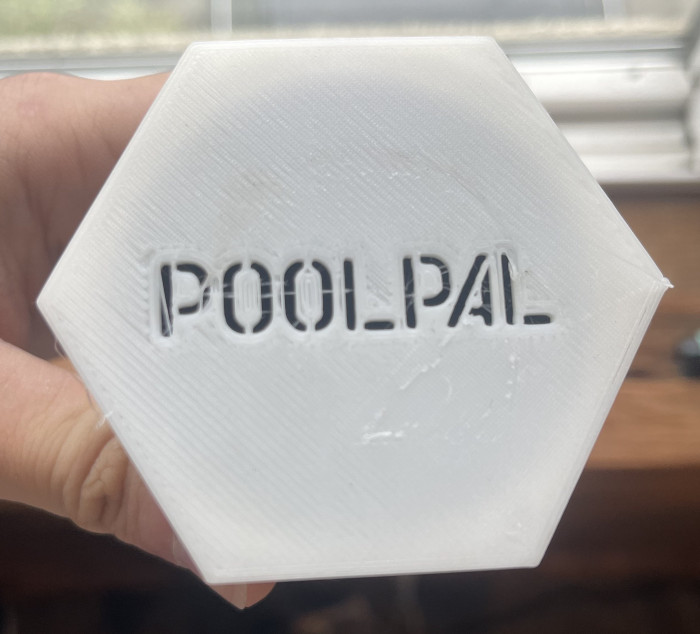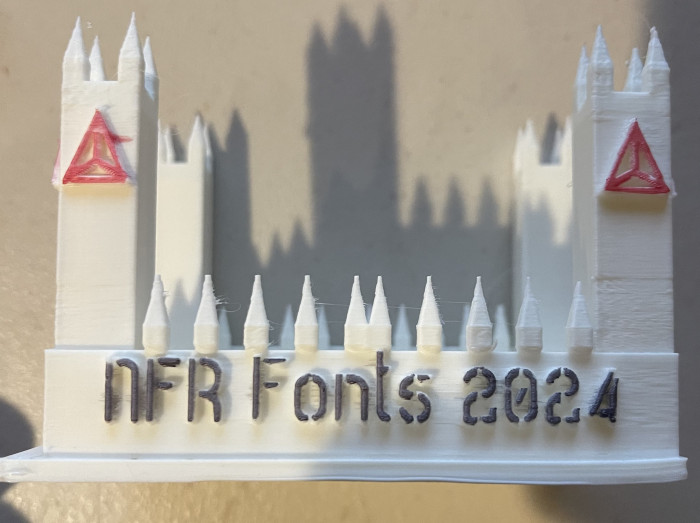
A very basic font I created specifically to emboss/use as holes in 3D printed material. This one is available for free, in the hopes that it will be useful for others attempting to use a simple stencil for projects. Sample coming soon. Only took me about 30min to make.
Hi Foar and Goatmeal, great to see both of you guys still here :) I remember making fonts on FS when i was 10, here I am now at age 21. It is 3-D Printed, just with basic PLA filament on a Ender 3 v3SE 3D printer, nothing too crazy or advanced. A simple font serving a simple but useful purpose. More samples coming soon.
Hi Elmo, as per your request I have completed the basic latin and additional latin character sets. Nice to see you again as well, hope you are doing great my friend.
Another IRL sample. this 3-D print is not perfect, but it's basically just a soap dish/little decorative castle. My first time ever using 3-D modeling software haha
Beautiful stencil work here! However, the j does overlap with some of the other lowercase letters, such as g, y, q, and itself. Honestly though, I can't really think of any words that have those letters in that order anyways, so i don't think this'll become a problem unless it gets used to type complete jibberish. Other than that though, great work!
You're right that the descender on the j is quite large, I'm thinking about removing the left-most half of it. However like you said, I don't really think it's an issue, and if it is I can always just delete the offending bits in the 3-D printing software since that is the sole purpose of this font haha. Thanks for the comment and vote.
A very basic font I created specifically to emboss/use as holes in 3D printed material. This one is available for free, in the hopes that it will be useful for others attempting to use a simple stencil for projects. Sample coming soon. Only took me about 30min to make.
IRL sample for a pool product I am developing.
Excellent stencil, @Noah F. Ross and great to see a real life application! Is it lasercut?
Hi Foar and Goatmeal, great to see both of you guys still here :) I remember making fonts on FS when i was 10, here I am now at age 21. It is 3-D Printed, just with basic PLA filament on a Ender 3 v3SE 3D printer, nothing too crazy or advanced. A simple font serving a simple but useful purpose. More samples coming soon.
Nice to see you here again, @Noah! And the font looks good. Have you thought about completing it?
Hi Elmo, as per your request I have completed the basic latin and additional latin character sets. Nice to see you again as well, hope you are doing great my friend.
Another IRL sample. this 3-D print is not perfect, but it's basically just a soap dish/little decorative castle. My first time ever using 3-D modeling software haha
I always love to see real life applications of a font. May I ask why the crossbar of lowercase t sits above the x- height?
Oops, that was accidental. Will fix now
Beautiful stencil work here! However, the j does overlap with some of the other lowercase letters, such as g, y, q, and itself. Honestly though, I can't really think of any words that have those letters in that order anyways, so i don't think this'll become a problem unless it gets used to type complete jibberish. Other than that though, great work!
You're right that the descender on the j is quite large, I'm thinking about removing the left-most half of it. However like you said, I don't really think it's an issue, and if it is I can always just delete the offending bits in the 3-D printing software since that is the sole purpose of this font haha. Thanks for the comment and vote.